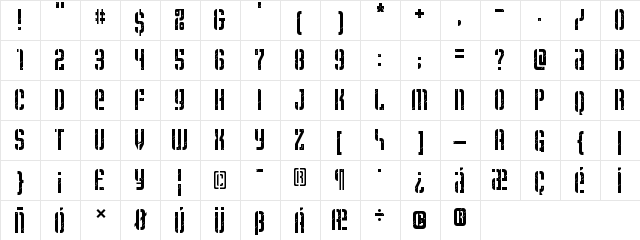
zelfvolution eYe/FS Regular
| Designer | Antonio J. Morata |
Design Context for zelfvolution eYe/FS Typeface
zelfvolution eYe/FS is a composed and adaptable typeface that performs quietly and consistently across a wide range of design contexts.